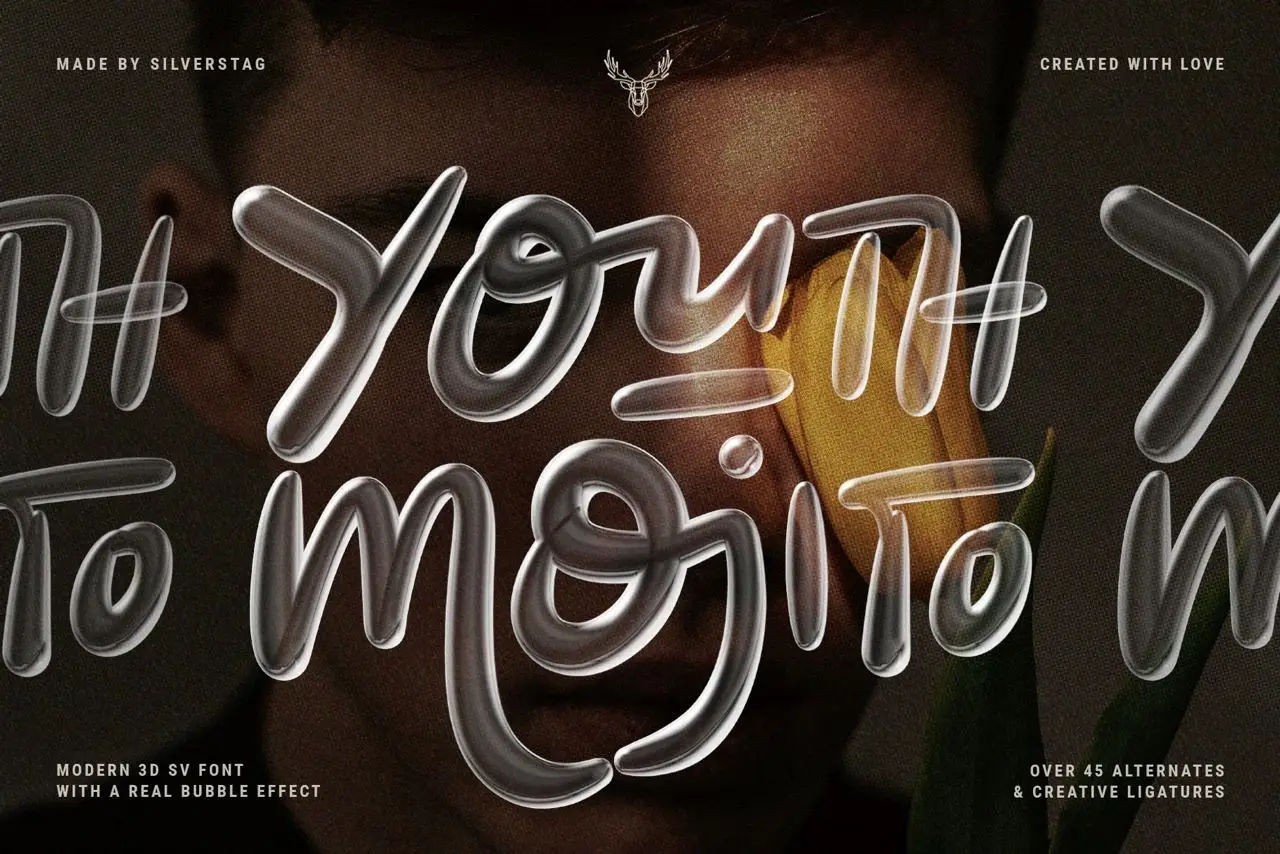
Silver Stag
Looking to refresh your social media visuals and typography projects? The SilverStag Creative Bundle brings together a refined Instagram story pack and a playful 3D font — everything you need to create elegant, modern content that stands out. Whether you’re designing for Instagram, blog graphics, or branding materials, this bundle offers versatile assets crafted for both beginners and seasoned creators.
What’s Included in This Bundle?
- #InstaGold Minimal Instagram Stories — 20 fully editable and modern Instagram story templates with a minimal, elegant aesthetic. Perfect for influencers and social media managers who want to maintain a clean, gold-accented visual identity.
- YOUTH MOJITO – A 3D Bubbly SVG Font — A unique SVG font with a bubbly, hand-drawn feel. Ideal for posters, presentations, website headers, and logos where you want typography to pop with a playful yet sophisticated look.
- YOUTH MOJITO – A 3D Bubbly SVG Font — An instant-download version of the same bubbly font, offering creative flexibility for your design projects, from social graphics to print materials.
Bundle Description
The SilverStag Creative Bundle combines the polished look of minimal Instagram templates with the lively charm of a 3D bubbly font. The #InstaGold set provides 20 ready-to-use story layouts with gold foil accents and clean typography, while the YOUTH MOJITO font adds a hand-drawn, dimensional feel to any text element. Together, they enable you to maintain a consistent brand style — from Instagram stories to custom headlines — without needing extensive design skills.
Why Choose This Bundle?
- SVG font scales without quality loss, perfect for both digital and print use.
- Minimalist design trends ensure your content looks current and professional.
- Two distinct but complementary styles (elegant gold + bubbly 3D) for varied projects.